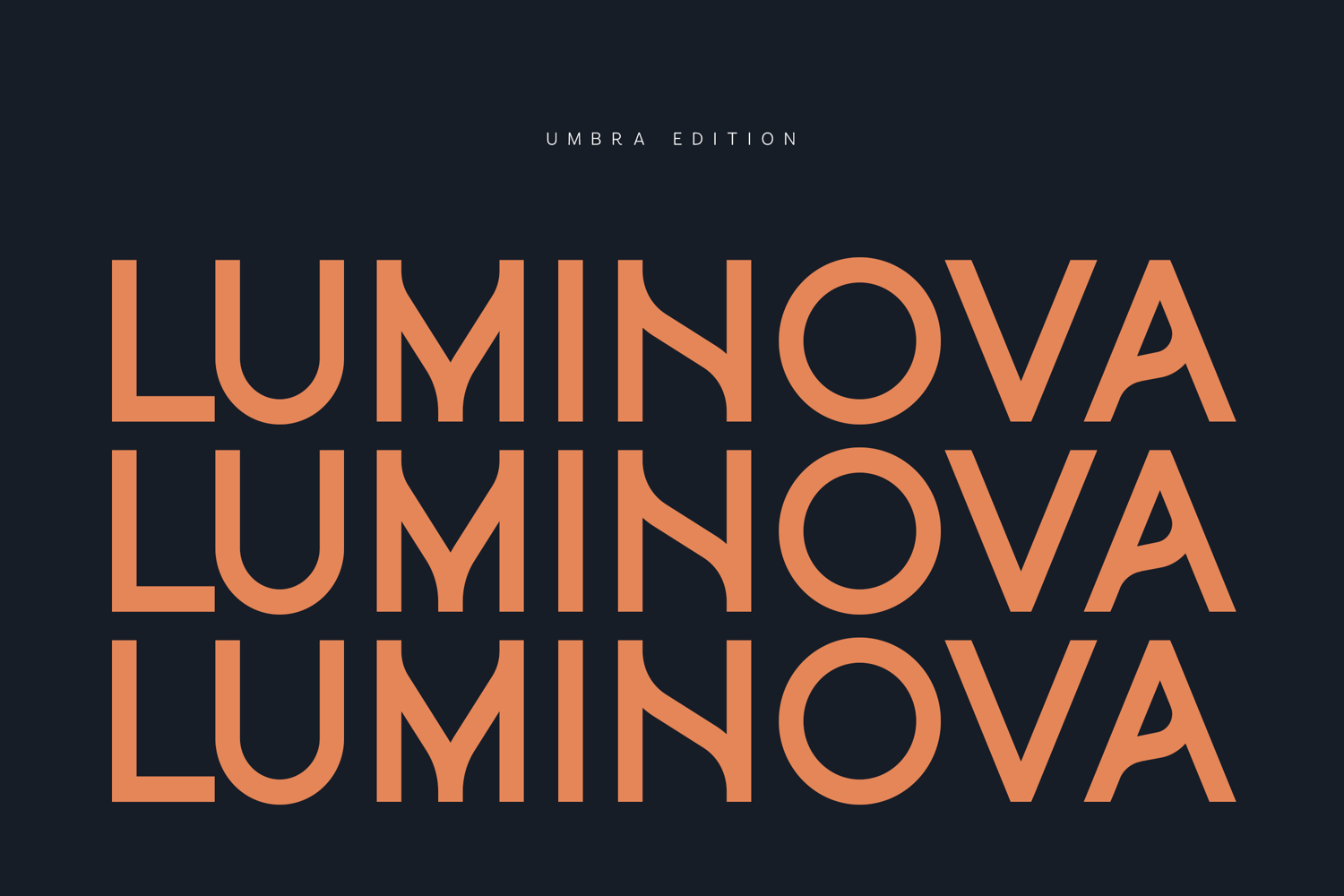
Luminova Geometric Display Sans
Introducing Luminova, a modern geometric display typeface inspired by contemporary architecture, urban design, futuristic aesthetics, and bold visual communication. Built from clean forms, balanced proportions, and distinctive geometric details, Luminova delivers a confident and unmistakably modern voice for today's brands and creatives.
At the heart of Luminova lies a unique design system that blends sleek geometric construction with carefully crafted character details. Circular counters, softened transitions, and custom-cut terminals create a recognizable personality that feels both futuristic and approachable. The result is a typeface that stands out in large-scale applications while maintaining exceptional clarity and readability.
Designed for versatility, Luminova excels across branding, technology, editorial design, packaging, advertising, social media, and visual identity systems. Whether you're building a cutting-edge startup brand, designing bold headlines, creating posters, or developing premium packaging, Luminova brings precision, energy, and sophistication to every composition.
With extensive multilingual support and a carefully refined character set, Luminova is ready for international projects and modern design workflows.
Features- Modern geometric display sans serif
- Distinctive custom character design
- Clean architectural forms
- Uppercase & lowercase characters
- Numerals and punctuation
- Extensive multilingual support
- International accented characters
- Refined spacing and kerning
- Bold display presence
- Excellent readability
- Perfect for branding and headlines
- Works across print and digital projects
- Technology Brands
- Startup Branding
- Visual Identity Systems
- Editorial Design
- Posters & Advertising
- Modern Packaging
- Corporate Branding
- Architecture Studios
- Creative Agencies
- Product Design
- App Interfaces
- Fashion Campaigns
- Social Media Graphics
- Magazine Headlines
- Website Design
- Signage Systems
- Automotive Branding
- Futuristic Concepts
Luminova was created for designers who seek clarity without sacrificing personality. Its geometric foundation provides structure and consistency, while its unique letterforms add distinction and memorability.
Bold, modern, and effortlessly versatile, Luminova helps brands communicate with confidence while maintaining a clean contemporary aesthetic.
Shape the future of your typography with Luminova.